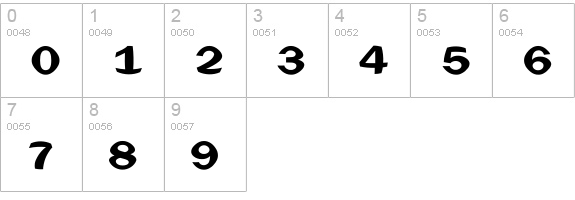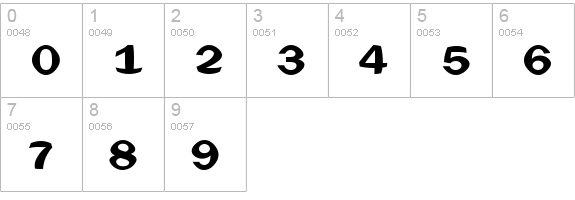
Sphericals Font Details
Introducing Sphericals, a captivating and versatile font that will bring a touch of elegance to your designs. With its perfectly rounded and smooth shapes, Sphericals embodies a harmonious balance between modernity and sophistication. This free font is a true gem for all design enthusiasts, as it offers a wide range of possibilities for both print and digital projects. Whether you're working on branding, packaging, headlines, or invitations, Sphericals will effortlessly elevate your creative vision to new heights. The beauty of Sphericals lies not only in its impeccable design but also in its accessibility. This font is freely available to download at FontsMarket.com, making it easily accessible to anyone seeking a high-quality and unique typeface. By offering Sphericals as a free resource, we aim to empower designers and creatives to explore their imagination without any limitations. Crafted with meticulous attention to detail, Sphericals boasts a well-balanced letterform, ensuring legibility and readability even in smaller sizes. Its versatility shines through in the varying weights and styles available, allowing you to find the perfect fit for any project. From the elegant thin variant to the bold and commanding heavy variant, Sphericals offers a delightful range of options to suit your creative needs. Unleash your creativity and let Sphericals inspire your next design endeavor. Whether you're a professional designer or an aspiring enthusiast, this font will undoubtedly become a valuable asset in your typographic arsenal. Its timeless appeal and effortless charm will captivate your audience and leave a lasting impression. Experience the beauty of Sphericals today and discover the endless possibilities that this remarkable font holds. Download it for free at FontsMarket.com and embark on a design journey that will redefine your creative boundaries.